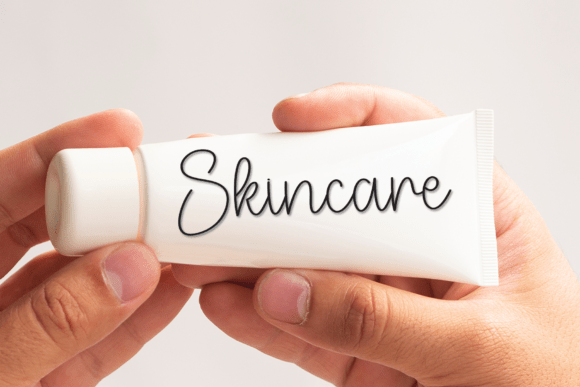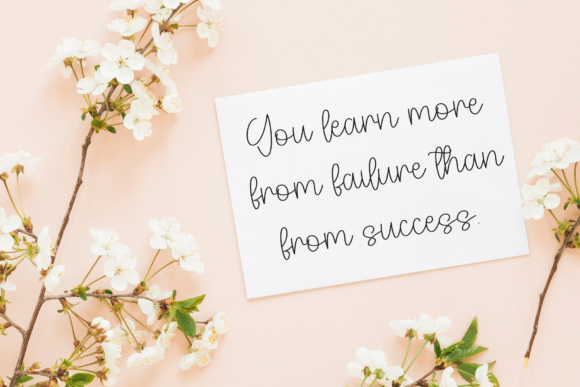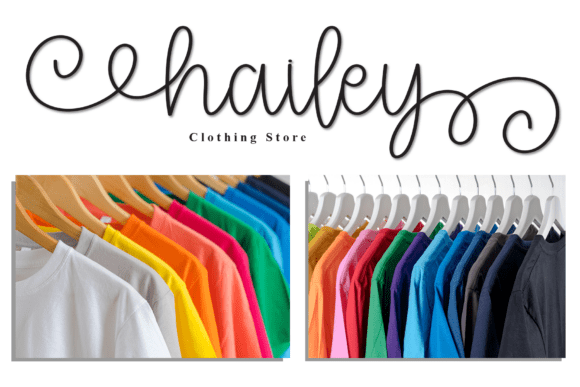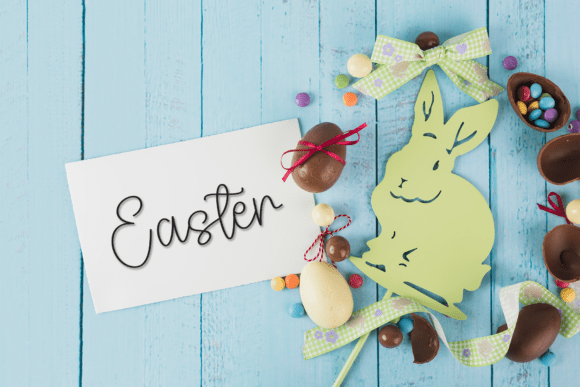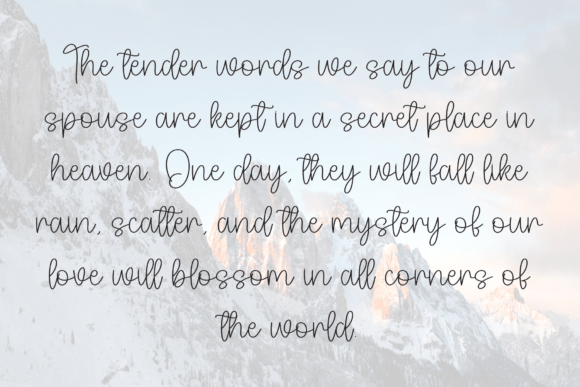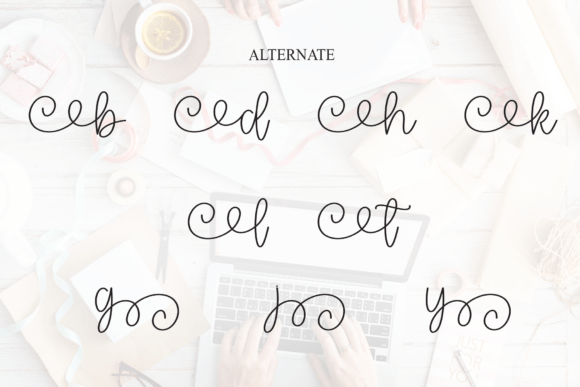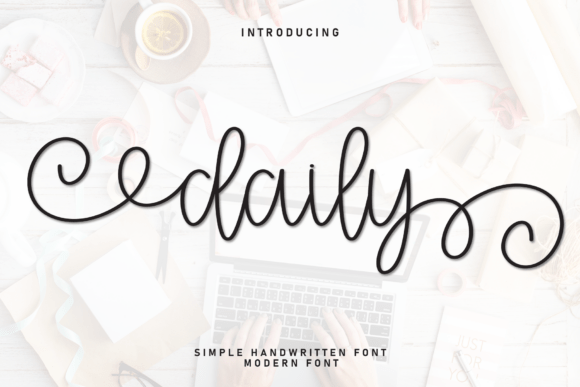
Introducing Daily Font: The Timeless Handwritten Font for Stunning Designs
Are you a designer or crafter looking for the perfect font to elevate your creative projects? Look no further than Daily Font, a lovely and timeless handwritten font that’s sure to capture the attention of your audience. With its unique and beautiful touch, Daily Font is the ideal choice for creating eye-catching logos, branding, and quotes that will make your design come alive!
The Characteristics of Daily Font
Daily Font is a carefully crafted handwritten font that boasts a range of characteristics that set it apart from other fonts. Each letter has a unique and beautiful touch, which gives the font a personal and human feel. The strokes are fluid and natural, with a subtle variation in line width that adds to the font’s charm. The overall effect is a font that feels both elegant and approachable, making it perfect for a wide range of design applications.
Why Choose Daily Font?
So why should you choose Daily Font for your design projects? Here are just a few reasons:
- Unique and eye-catching: Daily Font is a one-of-a-kind font that’s sure to grab the attention of your audience. Its unique and beautiful touch sets it apart from more generic fonts, making it perfect for creating stunning logos, branding, and quotes.
- Timeless appeal: Unlike trendy fonts that quickly go out of style, Daily Font has a timeless appeal that will ensure your designs remain stylish and relevant for years to come.
- Versatile: Daily Font is a versatile font that can be used for a wide range of design applications, from logos and branding to quotes and social media graphics.
- Easy to read: Despite its unique and artistic feel, Daily Font is surprisingly easy to read, making it perfect for use in body text as well as headlines.
Using Daily Font in Your Designs
So how can you use Daily Font in your designs? Here are a few ideas to get you started:
- Logos and branding: Use Daily Font to create a unique and memorable logo that sets your brand apart from the competition.
- Quotes and social media graphics: Daily Font is perfect for creating stunning quotes and social media graphics that will grab the attention of your audience.
- Invitations and stationery: Add a touch of elegance and sophistication to your invitations and stationery with Daily Font.
- Packaging and product design: Use Daily Font to create eye-catching packaging and product designs that will help your products stand out on store shelves.
Tips for Getting the Most Out of Daily Font
Here are a few tips for getting the most out of Daily Font:
- Experiment with different colors: Daily Font looks great in a range of colors, so don’t be afraid to experiment and find the perfect hue for your design.
- Play with font sizes: Daily Font is versatile and can be used at a range of font sizes, from large headlines to smaller body text.
In conclusion, Daily Font is a stunning handwritten font that’s perfect for designers and crafters looking to create eye-catching logos, branding, and quotes. With its unique and beautiful touch, timeless appeal, and versatility, Daily Font is sure to become a go-to font in your design arsenal. So why wait? Download Daily Font today and start creating stunning designs that will leave a lasting impression on your audience!